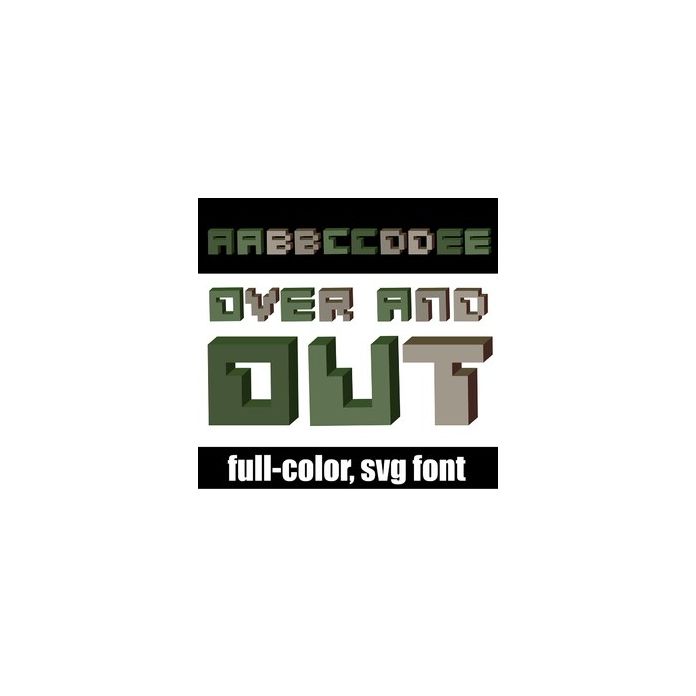
This videogame style font is sporting a variety of khakis and greens. There is an alt case w/ additional colors you can access through your system or Silhouette's glyph map.